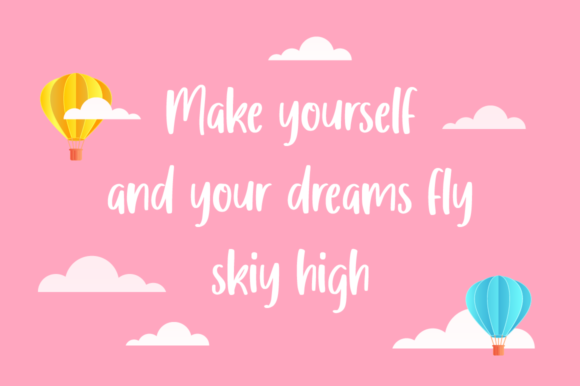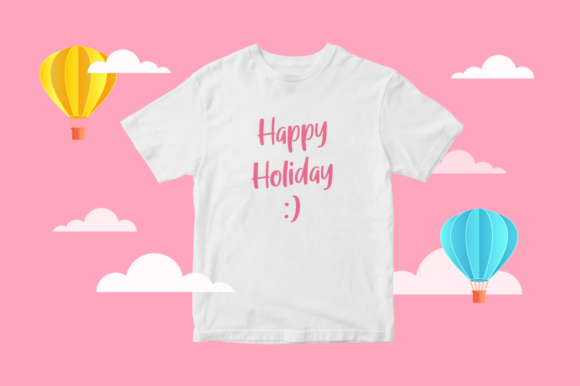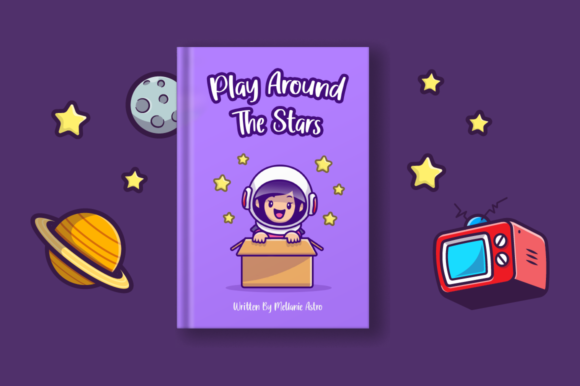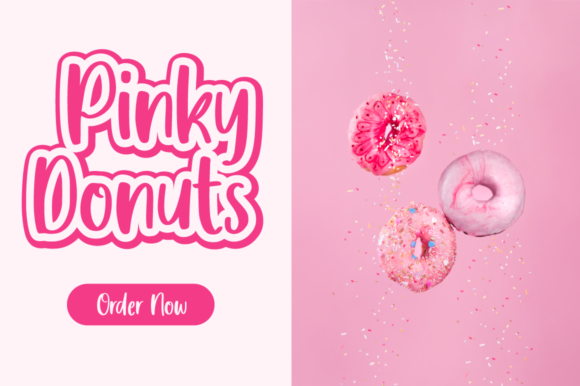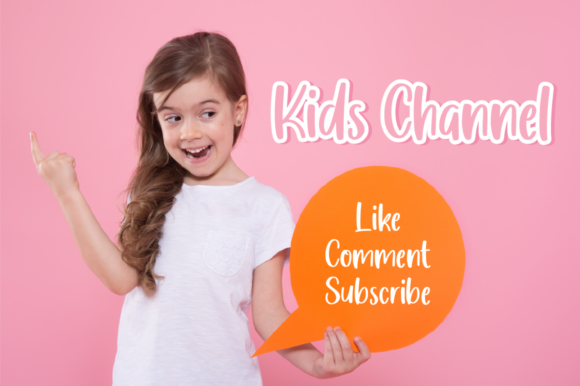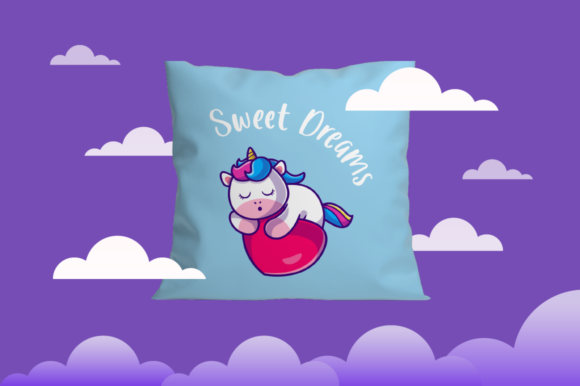
Introducing Balloon Font: The Ultimate Display Font for Joyful Designs
Are you tired of using the same old fonts for your designs? Do you want to add a touch of playfulness and joy to your creative projects? Look no further than Balloon Font, a cute and playful display font that’s sure to make your designs stand out!
What is Balloon Font?
Balloon Font is a beautiful display font that’s perfect for adding a touch of whimsy to your designs. With its rounded edges and bubbly appearance, this font is sure to bring a smile to anyone’s face. Whether you’re working on a graphic design project, a crafting project, or just want to add some personality to your digital creations, Balloon Font is the perfect choice.
Key Features of Balloon Font
- Cute and Playful: Balloon Font is designed to be fun and playful, making it perfect for designs that need a touch of personality.
- Display Font: This font is specifically designed as a display font, making it perfect for headlines, titles, and other large text elements.
- Rounded Edges: The rounded edges of Balloon Font give it a soft and friendly appearance that’s sure to appeal to designers and crafters alike.
- Easy to Read: Despite its playful appearance, Balloon Font is easy to read, making it perfect for designs that need to communicate a message.
How to Use Balloon Font in Your Designs
Balloon Font is incredibly versatile and can be used in a variety of design projects, including:
- Graphic Design: Use Balloon Font to add a touch of personality to your graphic design projects, such as brochures, flyers, and posters.
- Crafting: Add a playful touch to your crafting projects, such as handmade cards, scrapbook pages, and DIY decorations.
- Digital Creations: Use Balloon Font to add a touch of whimsy to your digital creations, such as social media graphics, blog posts, and email newsletters.
Tips for Getting the Most Out of Balloon Font
- Use it as a Headline Font: Balloon Font is perfect for use as a headline font, where its playful appearance can really make an impact.
- Pair it with Other Fonts: Experiment with pairing Balloon Font with other fonts to create a unique and eye-catching design.
- Use it in Color: Don’t be afraid to use Balloon Font in color – its playful appearance really comes alive when used with bright and bold colors.
Why Designers and Crafters Love Balloon Font
Designers and crafters love Balloon Font for its unique combination of playfulness and versatility. Here are just a few reasons why:
- It’s Fun: Balloon Font is just plain fun to use – it’s a great way to add some personality to your designs and make them more engaging.
- It’s Versatile: Balloon Font can be used in a wide range of design projects, from graphic design to crafting and digital creations.
If you’re looking for a font that will add a touch of joy and playfulness to your designs, look no further than Balloon Font. With its cute and playful appearance, versatility, and ease of use, this font is sure to become a favorite among designers and crafters alike. So why wait? Download Balloon Font today and start adding a touch of whimsy to your designs!